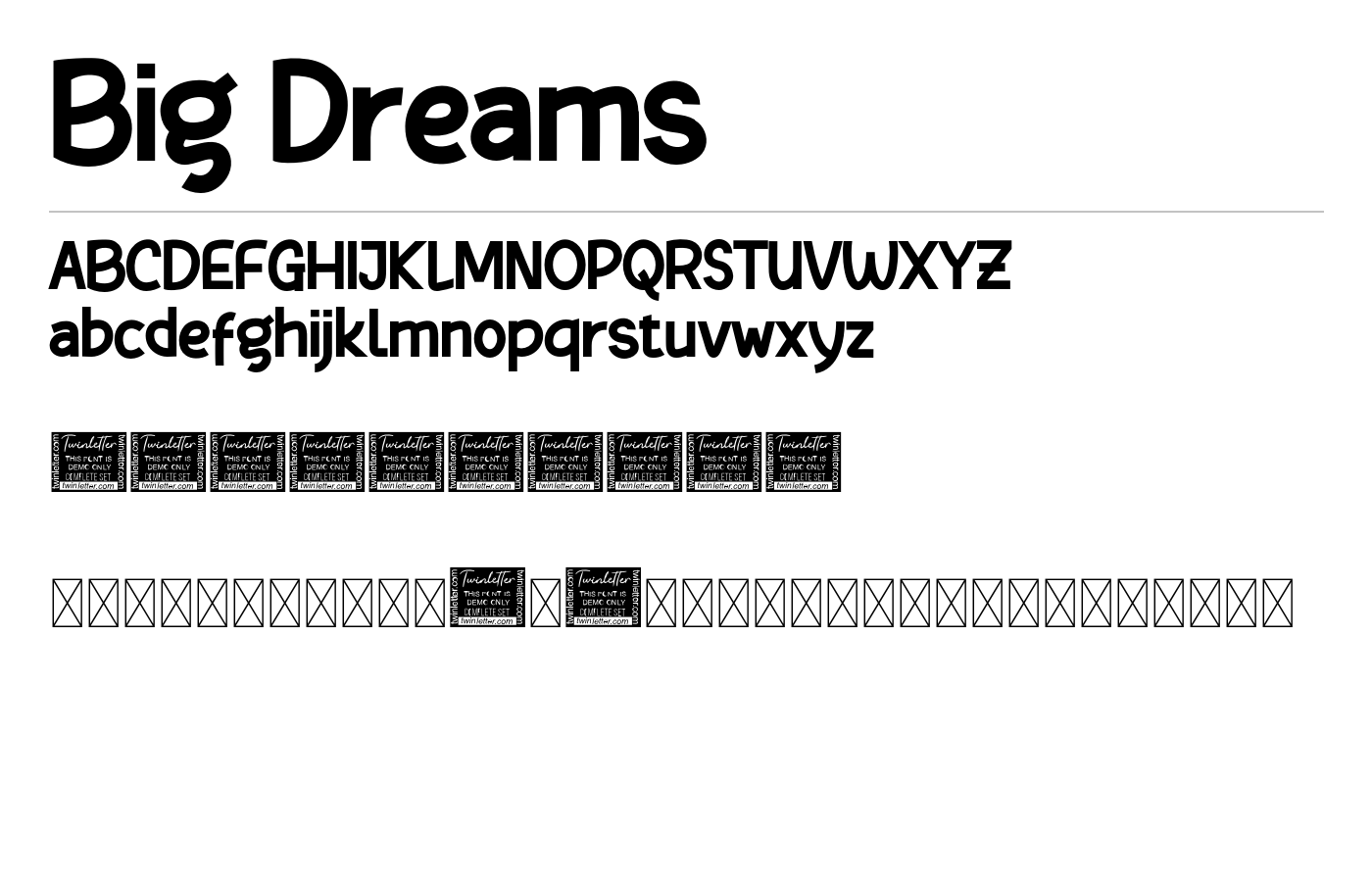
Big Dreams is a bold sans serif font with a playful, slightly quirky character marked by its uneven stroke widths and gently rounded corners. Its high x-height and unique letter shapes give it a friendly, approachable feel that works well for fun branding, headlines, and creative projects seeking a casual yet confident style. This font shines in informal settings where personality and readability are key.
Big Dreams Font
About Big Dreams Font